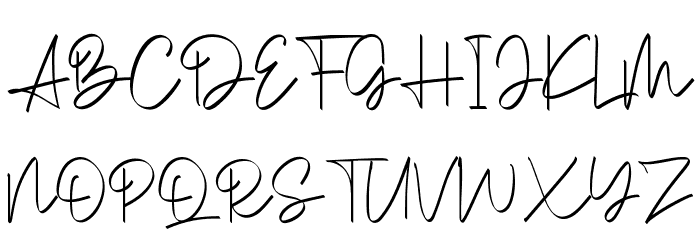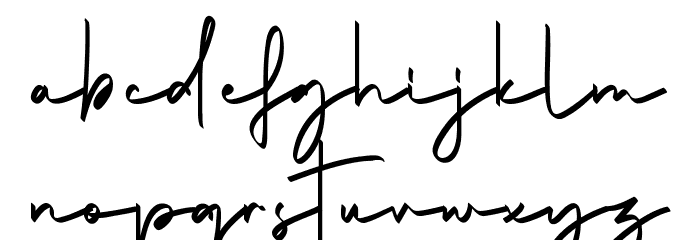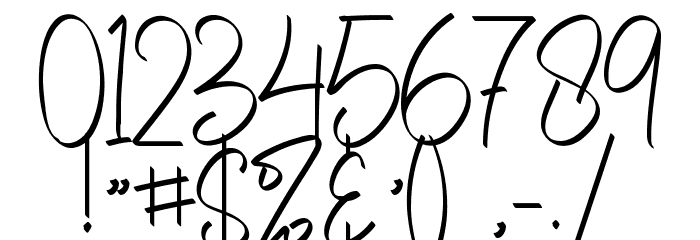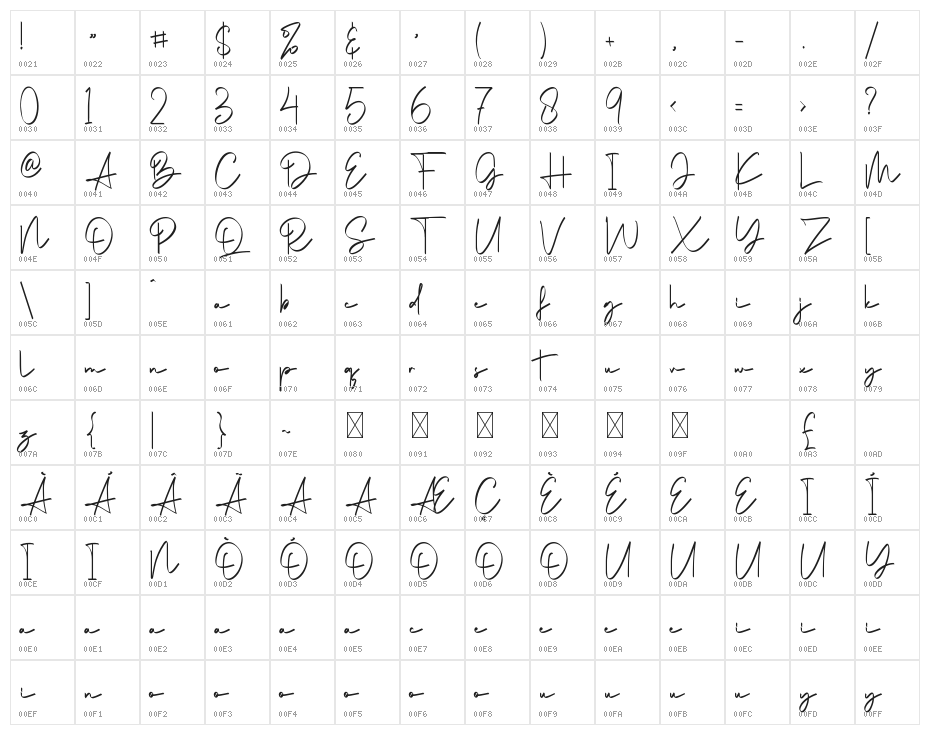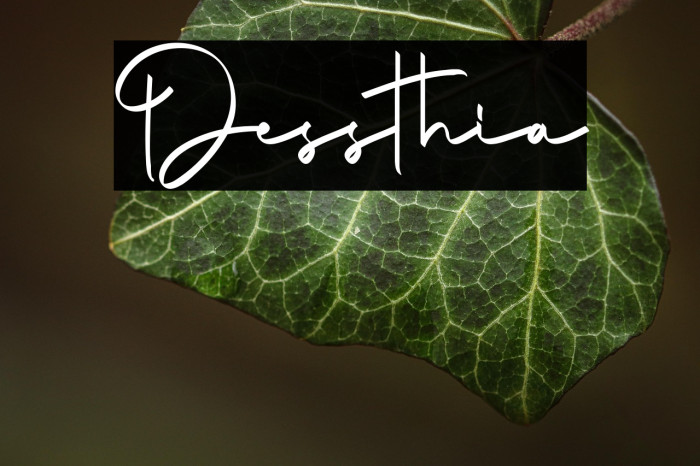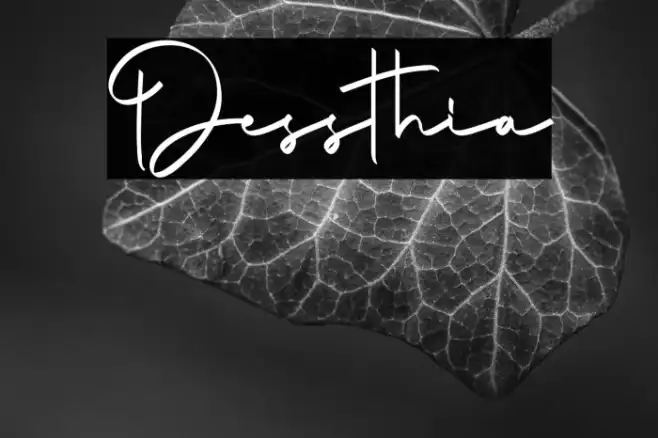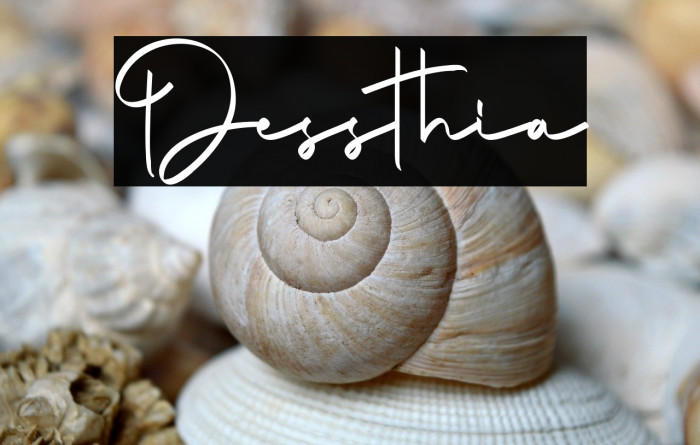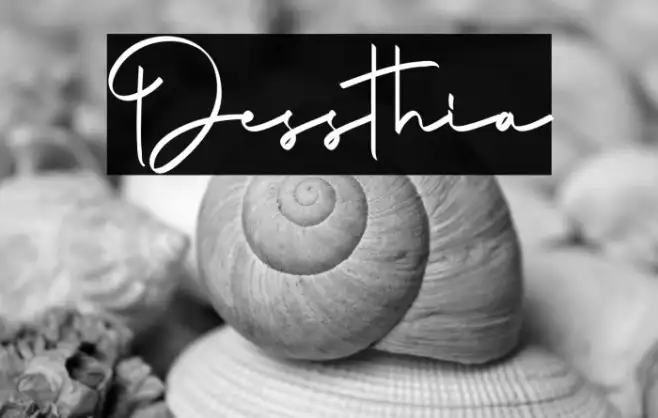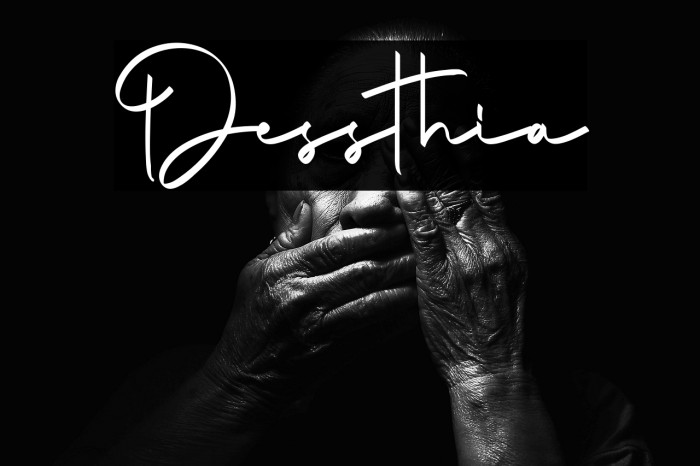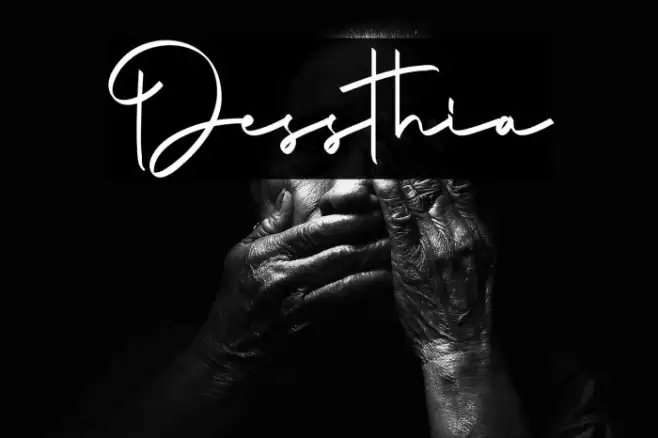
Dessthia Font
This font features a dynamic and expressive handwritten style, characterized by its fluid and cursive letterforms. The uppercase letters exhibit a playful and artistic flair with varying stroke widths, while the lowercase letters maintain a consistent flow, enhancing readability. The numerals and special characters are crafted with the same lively energy, making them stand out. This font's unique personality is perfect for projects that require a personal touch or a creative edge. Its overall appearance is both modern and artistic, making it suitable for a wide range of design applications.
A dynamic, expressive handwritten font with fluid cursive letterforms.
- Proposed Projects: Ideal for greeting cards, invitations, branding, and creative projects that require a personal touch.
- Overall Style: Modern, Artistic
- Use Case: Logos, Headlines, Creative projects